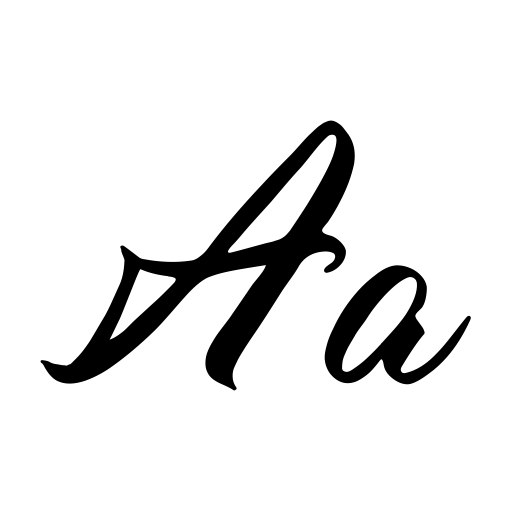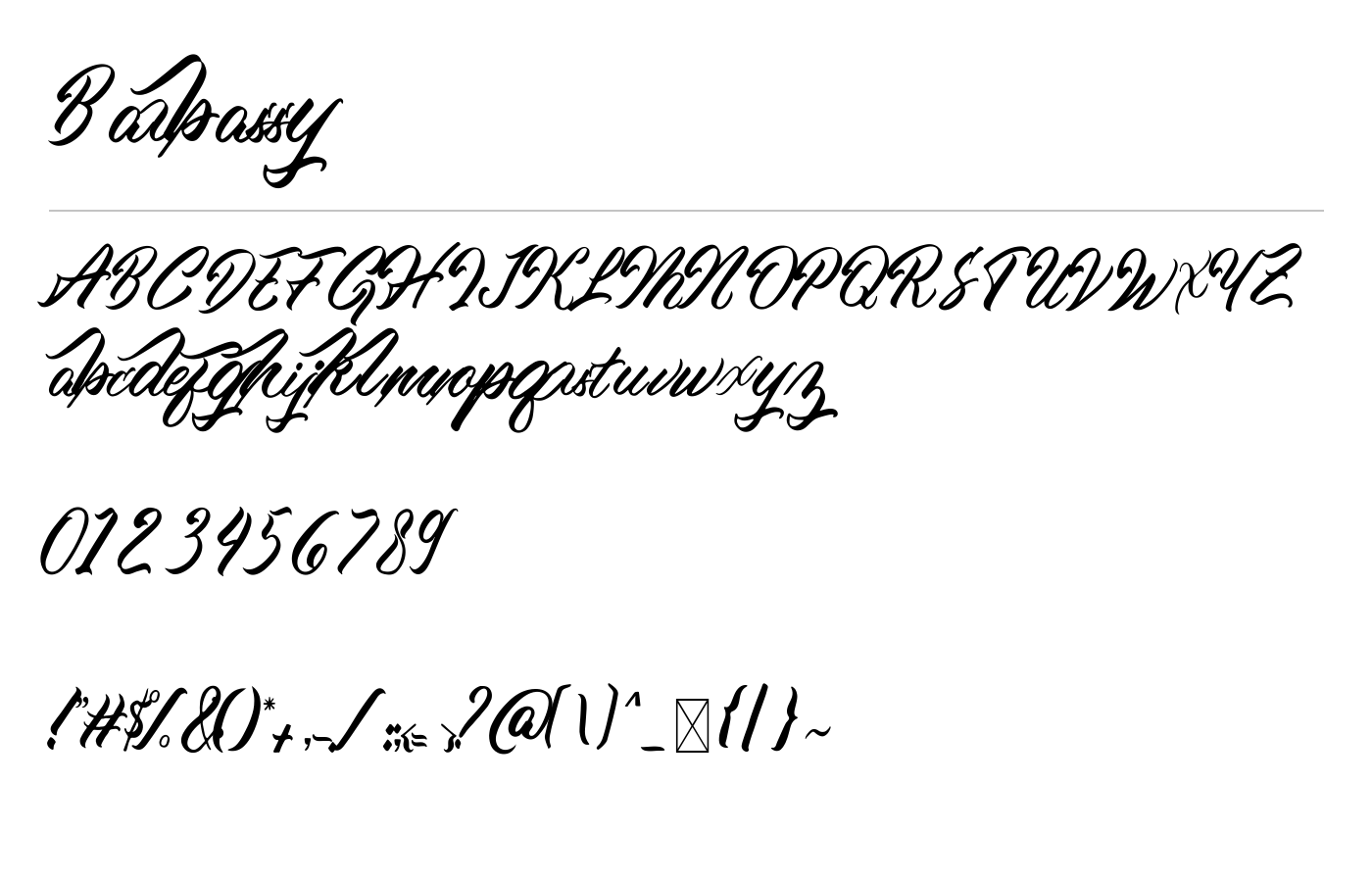
Barbassy is an elegant script font with a smooth, flowing style that mimics classic handwritten calligraphy. Its medium weight and slightly condensed letterforms create a refined and personal touch, making it ideal for invitations, logos, and branding that seek a sophisticated yet approachable feel. This font’s graceful curves and distinctive letter shapes bring a timeless, stylish charm perfect for fashion, luxury, and creative projects.
Barbassy Font
About Barbassy Font
| Font family | Barbassy Font |
| Designer | Java type studio |